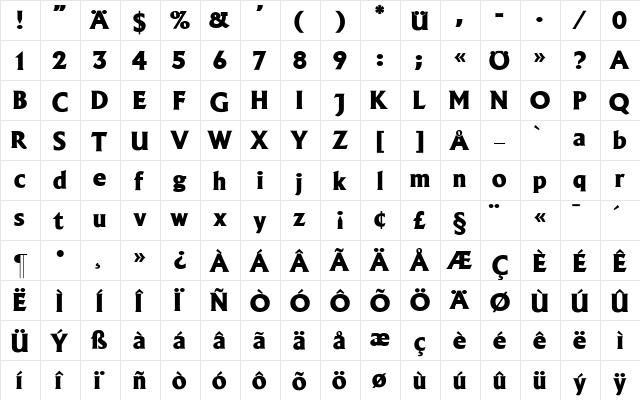
AlbertusSH ExtraBold
Design Context for AlbertusSH Typeface
AlbertusSH takes a measured approach to typography — its balanced proportions and neutral character make it a reliable workhorse for both digital and print work. The heavy weight commands attention and anchors typographic hierarchies.